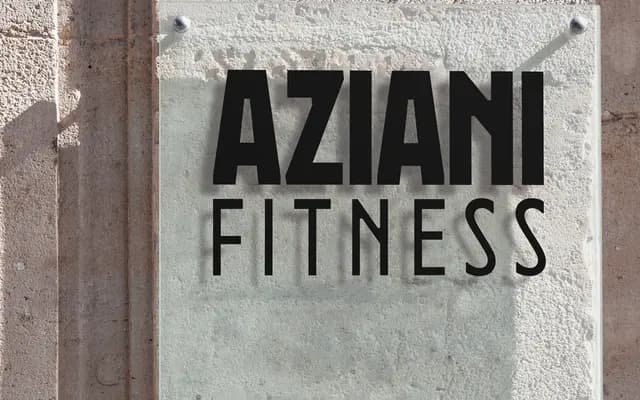
New Herman
A four-weight grotesque sans from Newlyn, spanning Light to ExtraBold for text and display applications.
New Herman is a grotesque sans-serif offered in four weights from Light through to ExtraBold, each available as OpenType fonts. The family reads cleanly at both small text sizes and large display settings, with specimen text shown across multiple European languages suggesting broad Latin character support. With no italic or condensed cuts, it is a compact, focused offering suited to straightforward editorial and branding work.
New Herman presents as a grotesque sans-serif with four weights from Light to ExtraBold, following the conventions of European grotesque types with sturdy, upright forms suited to text and display use.